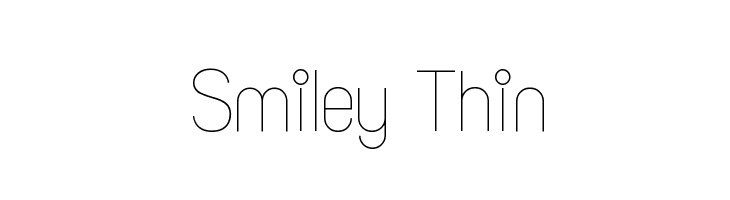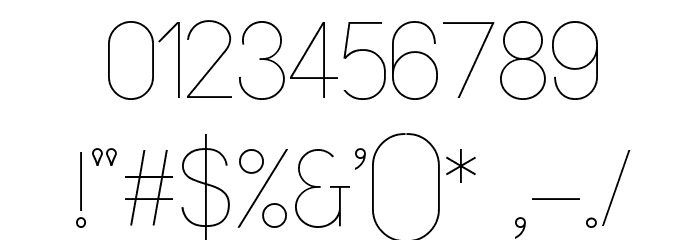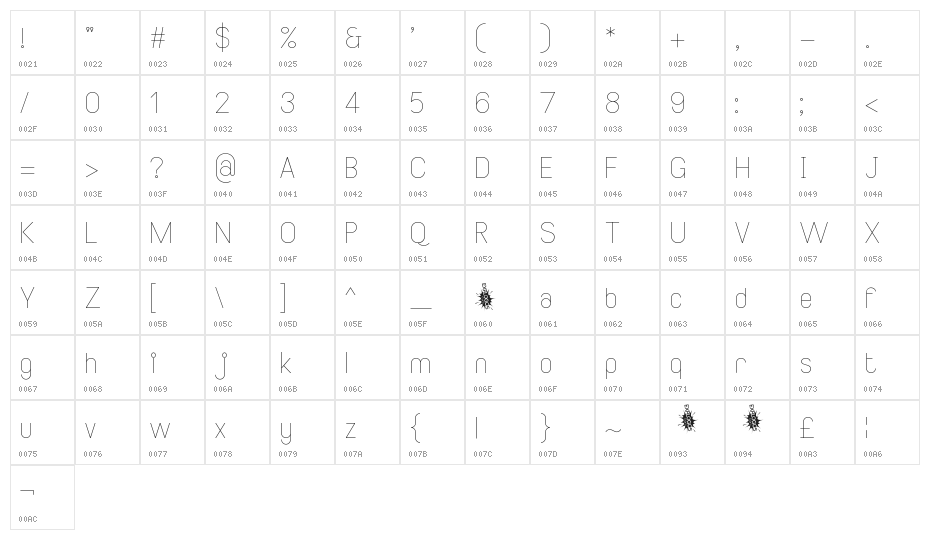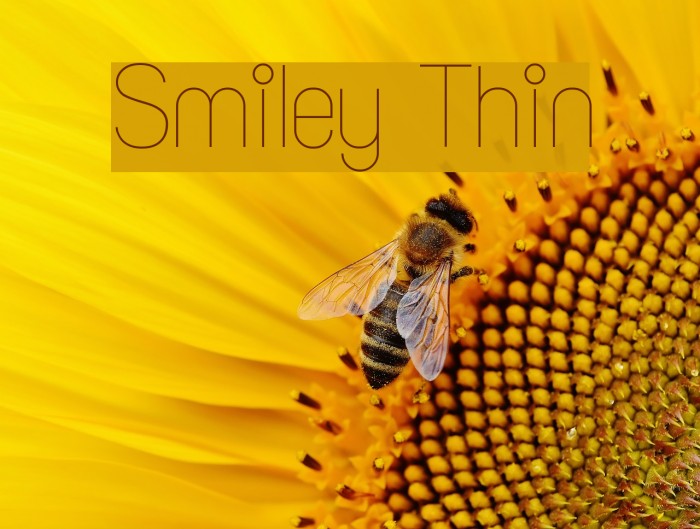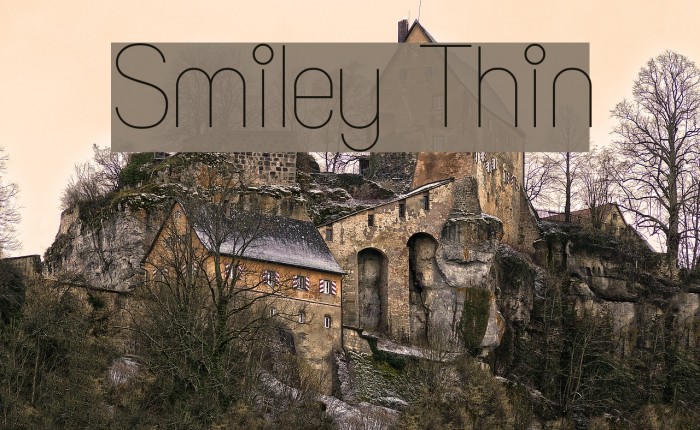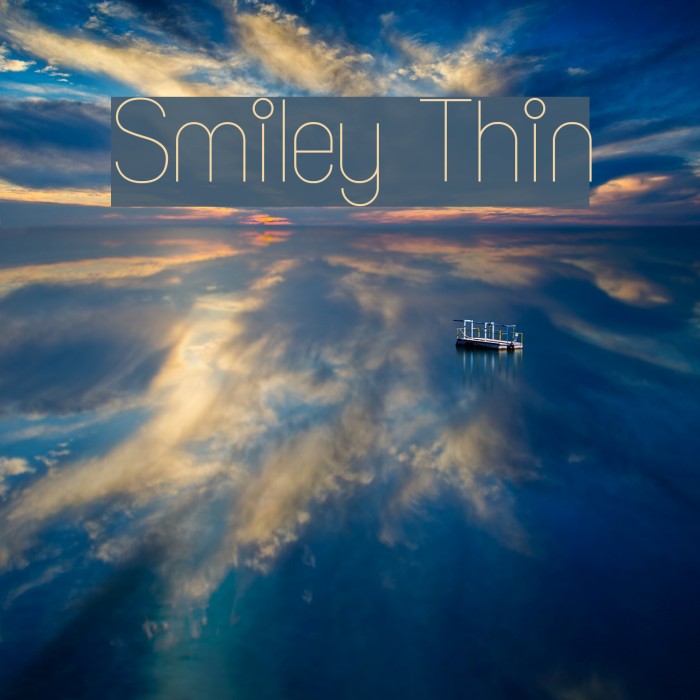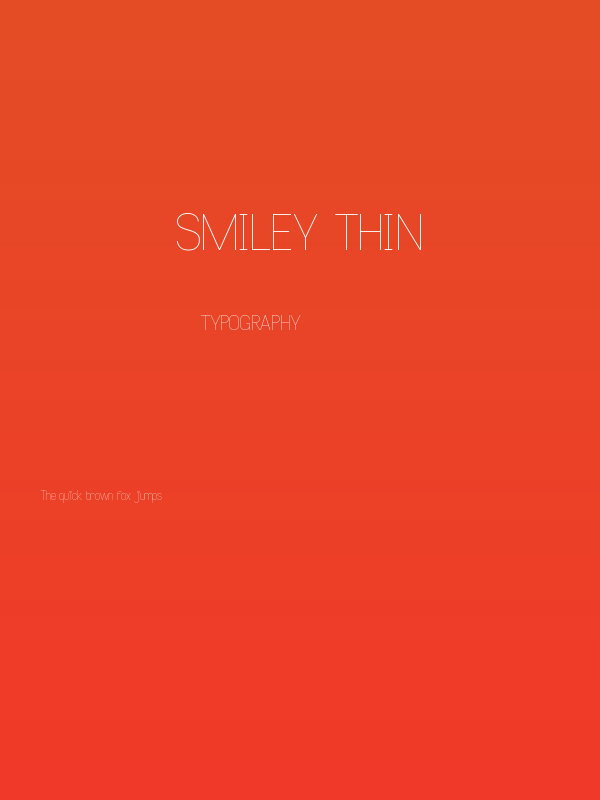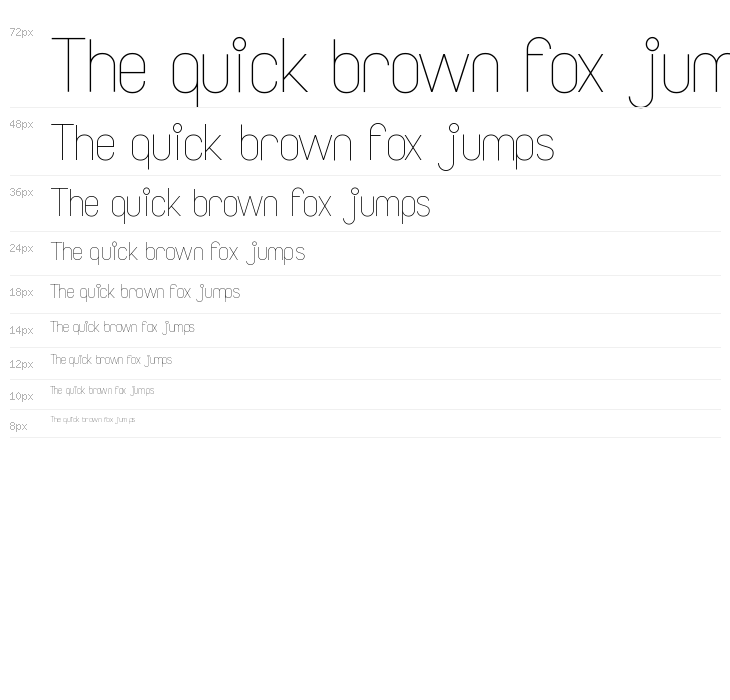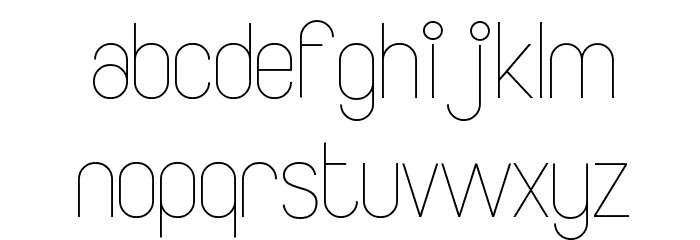
Smiley Thin Font
Smiley Thin Description
This font features a sleek and modern design with thin, clean lines that give it a minimalist and elegant appearance. The characters are uniformly structured, maintaining a consistent height and width, which contributes to its orderly and sophisticated look. The uppercase and lowercase letters are well-balanced, with rounded edges that soften the overall geometric style. The numerals and special characters follow the same thin and airy design, ensuring a cohesive look across all text elements. This font's simplicity and clarity make it highly readable, while its modern aesthetic adds a touch of sophistication.
| Use Case | Headlines, Logos, Web design |
| Proposed Projects | Ideal for modern branding, minimalist posters, elegant invitations, and contemporary web design. |